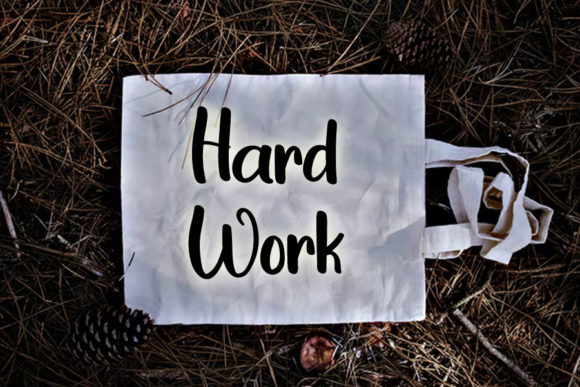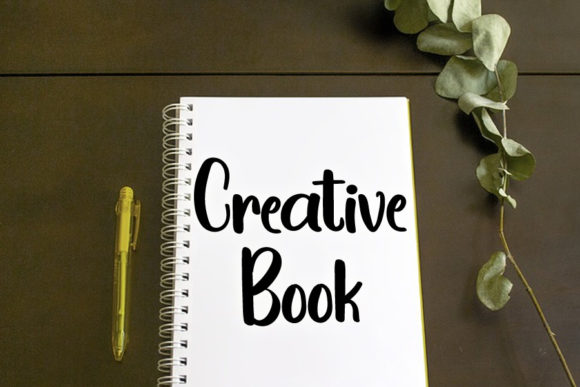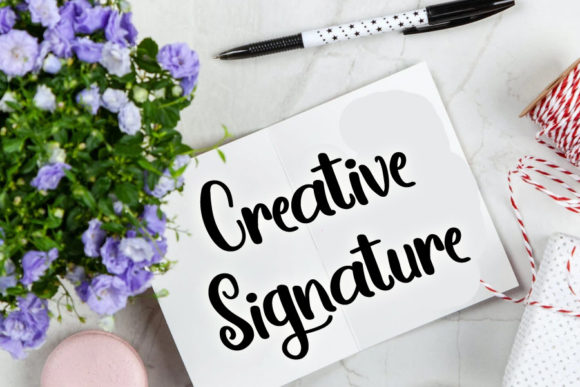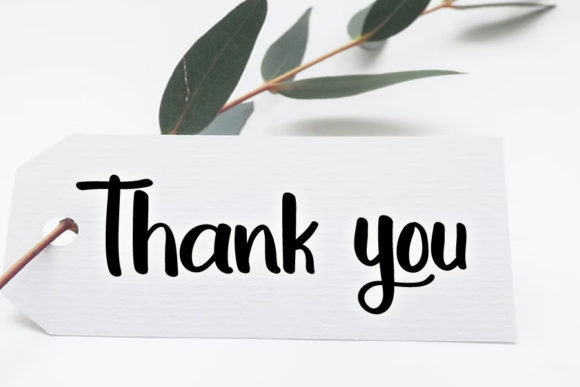
Introduction to Honey Bunny Font
As a designer, have you ever stumbled upon a font that sparks joy and makes your creative project shine? For me, it was the moment I discovered the Honey Bunny Font – a beautiful and high-quality design resource that has been a game-changer in my work.
With its simple yet unique aesthetic, the Honey Bunny Font is perfect for a wide range of creative projects, from YouTube banners and cover logo mockups to wedding invitations and id cards. And the best part? It’s available for free download, making it an accessible design resource for designers of all levels.
Whether you’re working on a high-end project or a personal craft, the Honey Bunny Font is a valuable addition to your design toolkit, offering a transparent background and endless possibilities for creative expression.
Key Features of Honey Bunny Font
- High-quality, hand-drawn design perfect for creative projects and unique branding
- Transparent background, allowing for seamless integration with any design
- Includes a range of ligatures, swashes, and alternates for added creativity
- Designed with a bold, playful style, making it perfect for children’s books, greeting cards, and more
Honest Review: Honey Bunny Font
I recently came across the Honey Bunny Font, and I must say it’s a sweet addition to any designer’s toolkit. This font is perfect for a high-quality creative project that requires a touch of whimsy and charm.
Here’s what works well about the Honey Bunny Font: ✨ It’s a great choice for headings and titles, thanks to its playful and cursive design. ✨ The font also comes with a transparent background, making it easy to use on various design resources and backgrounds. ✨ Plus, it’s free to download, which is always a bonus for designers on a budget.
However, there are a few limitations to consider: ⚠️ The font may not be suitable for formal or corporate projects, as its playful design may come across as too casual. ⚠️ Additionally, the font may not be as versatile as some other options, so it’s best to use it for specific design elements rather than as a primary font.
Overall, I’m impressed with the Honey Bunny Font. It’s a fun and creative design resource that can add a lot of personality to a project. Just be sure to use it judiciously and consider the tone you’re trying to convey.
Here are some potential uses for the Honey Bunny Font:
- Children’s book illustrations
- Food and beverage branding
- Quirky advertising campaigns
Tips for Getting the Most Out of the Honey Bunny Font
For a high-quality design, use the Honey Bunny Font on a transparent background to create a beautiful, eye-catching effect. Experiment with different font sizes and colors to add creativity to your project. This font is perfect for a variety of design projects, including social media graphics, flyers, and posters.
The Honey Bunny Font is ideal for any creative project that requires a playful and whimsical touch. Use it for branding, marketing materials, or any other design project that needs a high-quality, free download font with a transparent background.